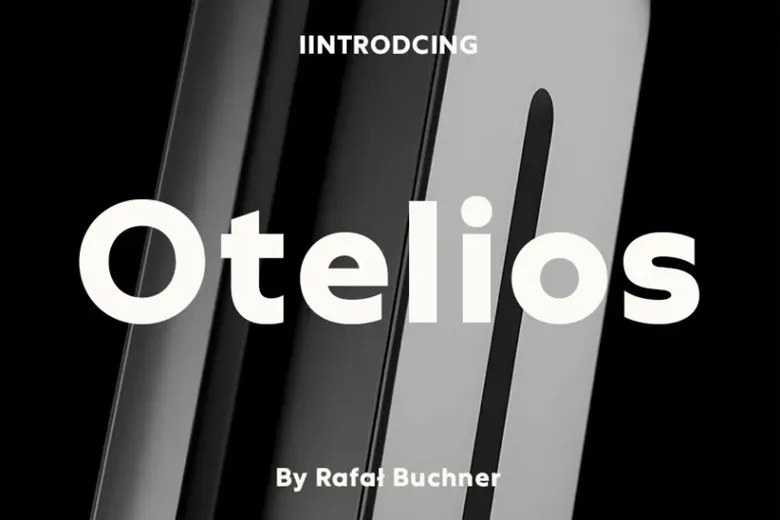
Otelios Font Family
Otelios is a geometrical sans serif font with mild humanist characteristics that improve the legibility. Its monolinear letterforms are mainly geometric, with some characters, like the ‘S’, the e and f and s and t and 5 and 6 and 9 and the default ampersand ( & ), using the humanist designs to enhance readability.
These humanist glyphs have open counters which enable them to be clearer, particularly when used in small size or on computers. Otelios features rounded dots on punctuation marks and letters, which make it feel friendly and approachable and makes it particularly appropriate to corporate design, user interfaces, and other editorial uses.
Otelios Sans Serif Font Family